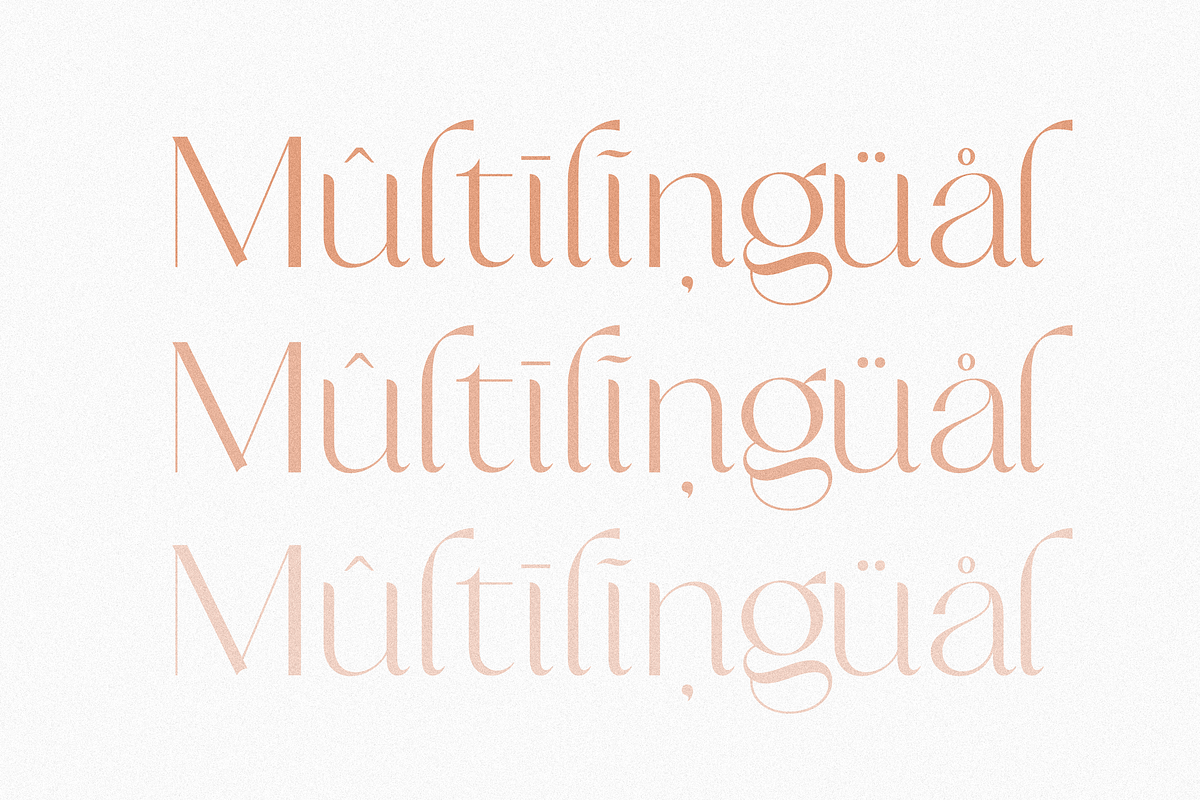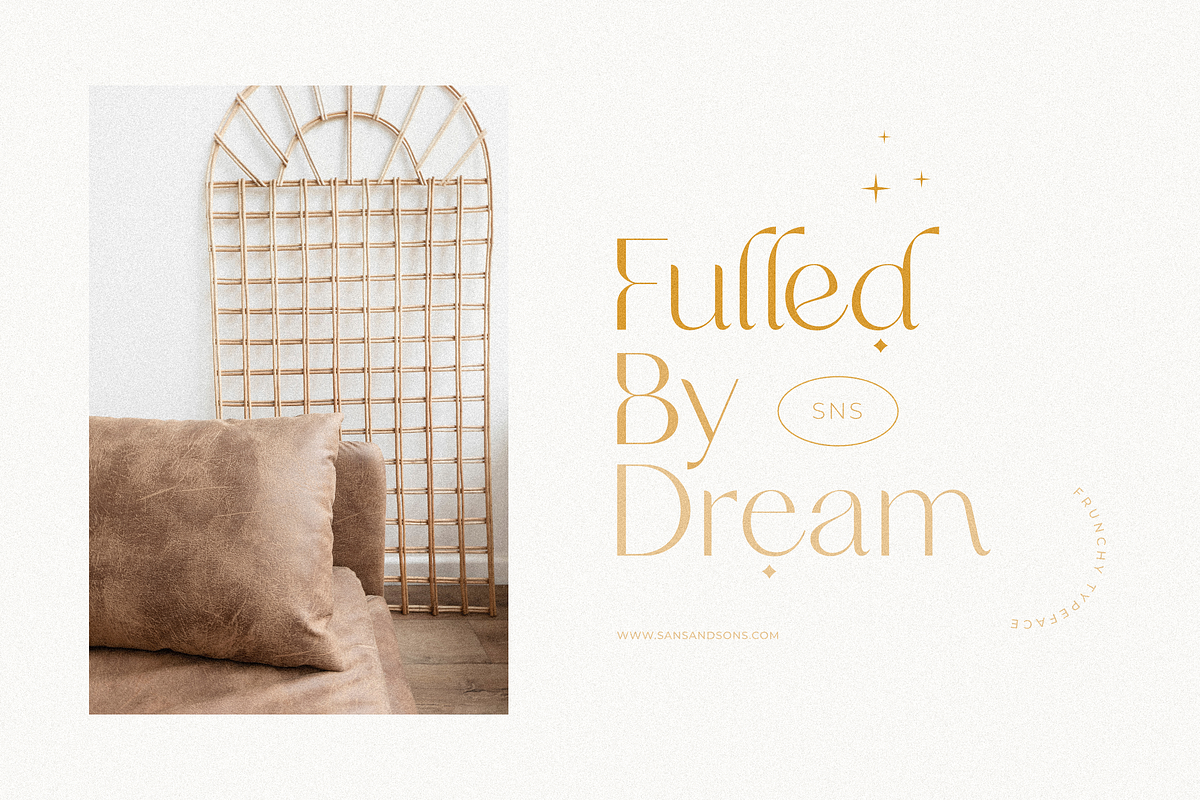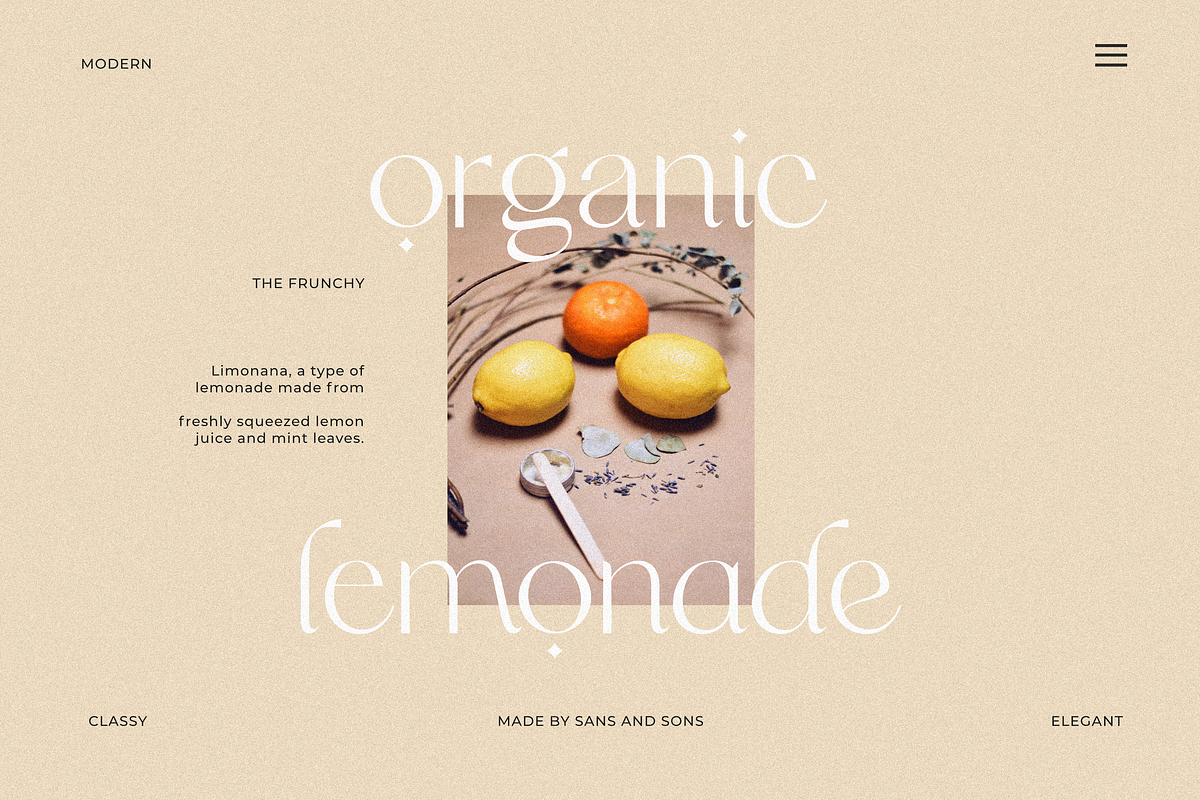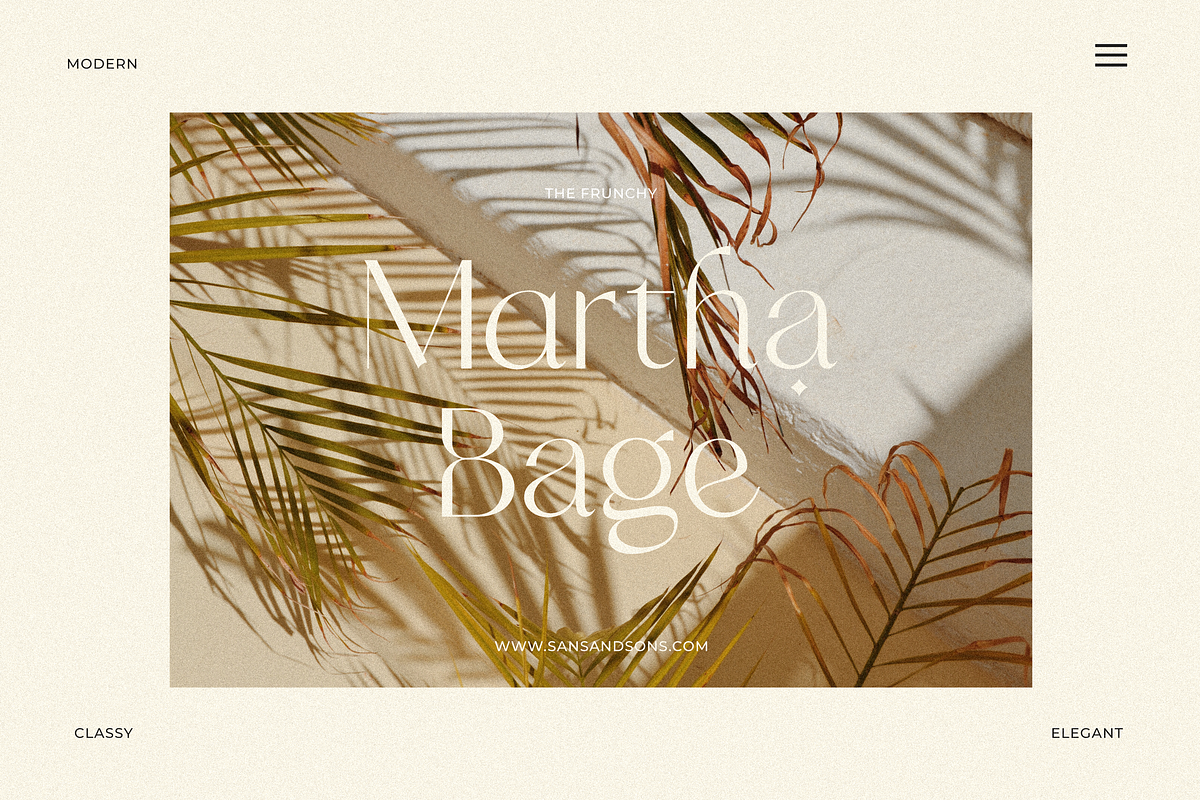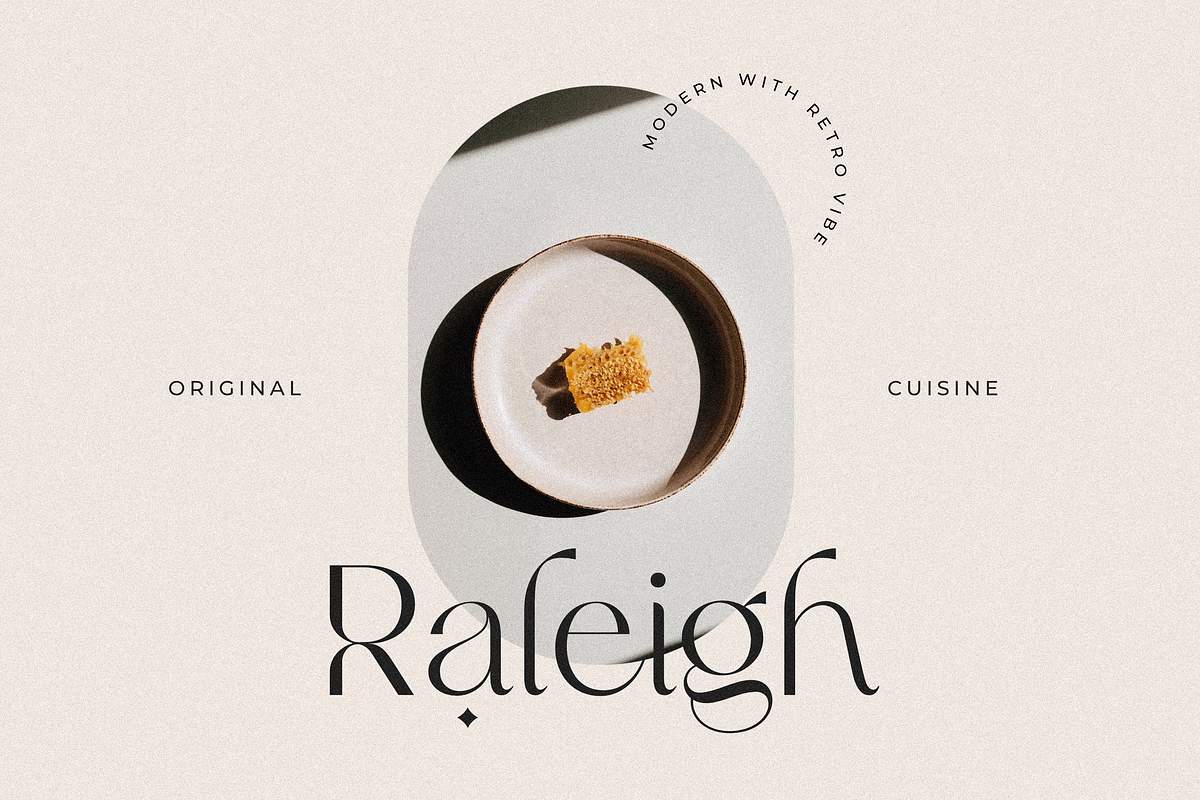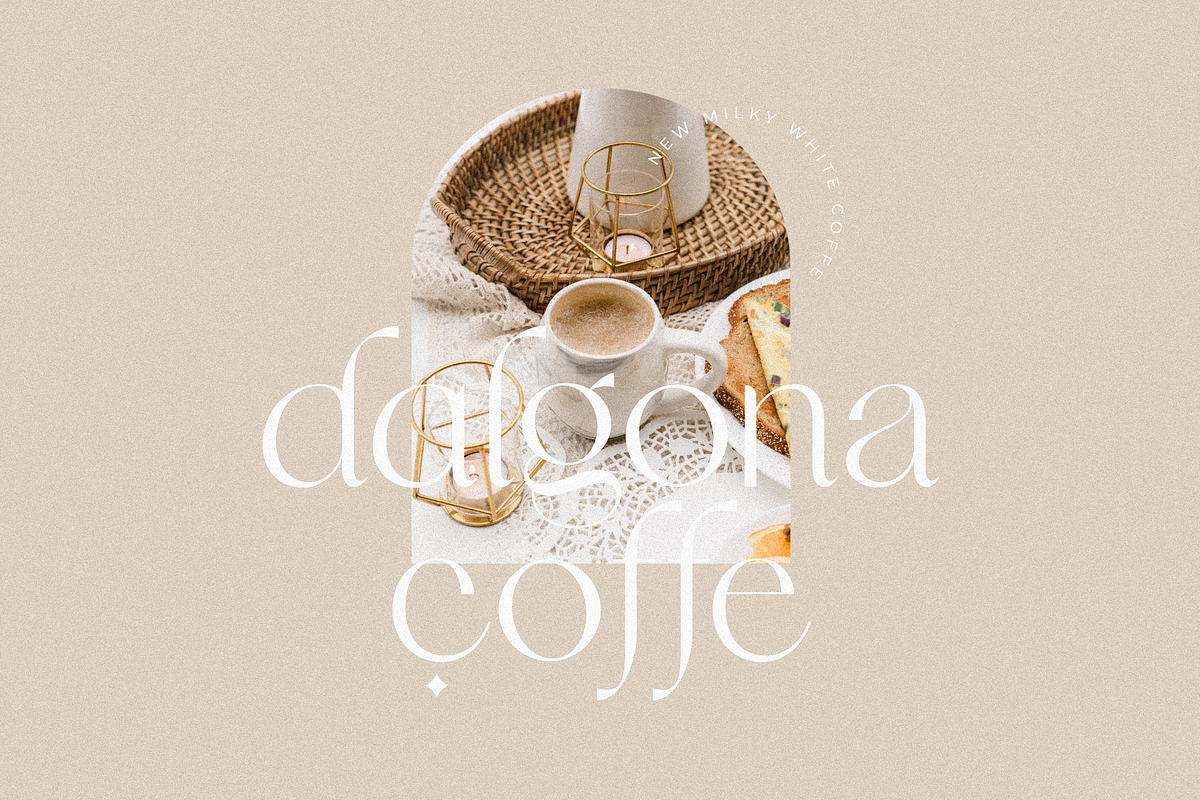
Frunchy - Modern Chic Font
Frunchy - Modern Elegant Chic Font by Sans and Sons
introducing our new "Frunchy" Modern Ligature with Elegant Style this is perfect for branding, logos, invitation, masterheads and more.
Frunchy Features :
- Multilanguange